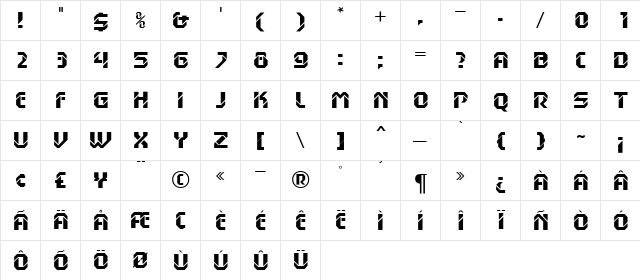
Hansson Stencil MN Bold
Design Context for Hansson Stencil MN Typeface
Hansson Stencil MN borrows the utilitarian aesthetic of stencil lettering, with its characteristic cutaways and no-frills construction lending an industrial edge. Its bold stroke weight gives it real presence on the page.
A strong choice for packaging that needs edge, warehouse aesthetics, and rough-and-ready visual identities.
Pro Tip: Use Hansson Stencil MN at large sizes on packaging, posters, or apparel where the stencil cutaways read clearly. Avoid small sizes where those gaps become visual noise.